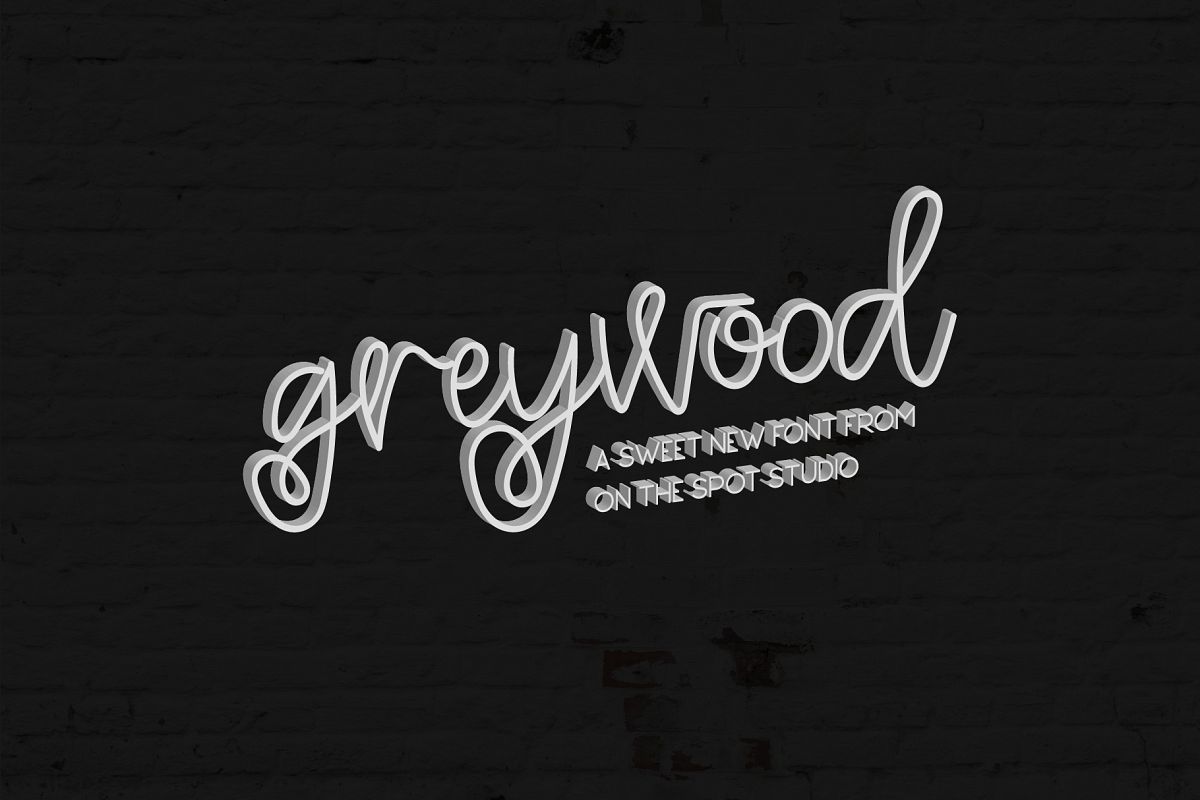
Greywood & BONUS Cedarwood Display
Meet Greywood! A super cute monoline script perfect for your everyday use! Also included: Cedarwood Display which is ONLY LETTERS meant to use when playing with typography!